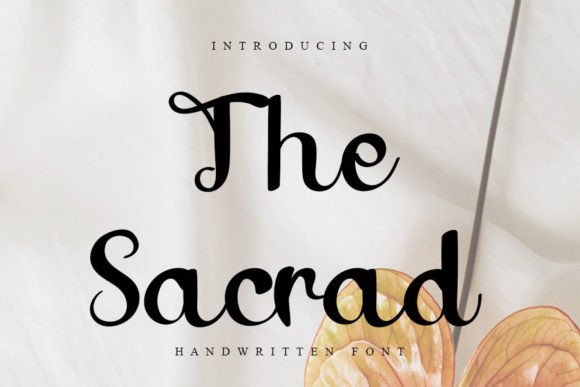
The Sacrad Font: A Touch of Delicate Romance
There are typefaces that command attention with bold strokes and geometric precision, and then there are those that whisper. The Sacrad Font belongs firmly in the latter category. It is a premium font characterized by its slim, delicate handwritten style. It isn't designed to shout from the headlines; it is designed to connect on a personal level. If you have ever struggled to find a typeface that feels genuinely warm without looking messy or childish, this handwritten font offers a refined solution. It strikes a rare balance between the casual nature of a script font and the legibility required for professional design assets.
The Anatomy of a Joyful Typeface
When we talk about the visual characteristics of The Sacrad, we are looking at a masterclass in subtlety. The letterforms are constructed with a light touch, mimicking the natural flow of a fine-tipped pen on high-quality paper. Unlike heavy, textured brush scripts that can feel aggressive, this creative font is airy. The baseline has a gentle, organic sway, but it remains consistent enough to ensure readability.
The personality of The Sacrad is distinctly dainty and joyful. You can see this in the way the terminals (the ends of the strokes) taper off to delicate points. The spacing between letters is generous, allowing the design to breathe. This isn't just about aesthetics; it’s about modern typography that prioritizes clarity. It avoids the overly complex swashes that often render script fonts useless in smaller sizes. Instead, it offers a clean elegance that feels timeless rather than trendy. For a brand identity, this translates to a personality that is approachable, trustworthy, and sophisticated.
Strategic Applications: From Wedding Invites to Web Design
While the description mentions wedding invitations—and it truly excels there—limiting The Sacrad to just one niche would be a mistake. Its utility spans across various sectors of editorial design and packaging design. As a designer or entrepreneur, understanding where to deploy this typeface is key to maximizing its impact.
Wedding and Event Stationery
This is the natural home for The Sacrad. In the context of wedding invitations, save-the-dates, and thank you cards, the font acts as the emotional anchor. It suggests a human touch, implying that the stationery was crafted with care. It pairs beautifully with a classic serif font for the details (like dates and addresses), creating a visual hierarchy that guides the eye naturally.
Branding and Logo Design
For businesses in the lifestyle, beauty, wellness, or boutique fashion sectors, The Sacrad is a powerful tool for logo design. It signals that the brand values personal connection and quality. However, a word of caution from a brand strategy perspective: because it is so delicate, it must be paired with a sturdy sans serif font or a serif typeface for body copy to maintain professionalism. Using it for a logo works because logos are usually displayed at sizes where the font's details can shine.
Digital Presence and Social Media
In the realm of web design and social media graphics, texture is everything. A block of text in a standard Arial or Helvetica font can feel sterile on an Instagram feed or a website hero section. The Sacrad adds immediate personality. It is excellent for pull quotes on blog posts, header graphics on Pinterest pins, or overlay text on lifestyle photography. It helps break the monotony of standard web fonts and increases audience engagement by drawing the eye to specific, emotional phrases.
Technical Considerations for Designers
Choosing a commercial font isn't just about falling in love with the aesthetic; it’s about functionality. Here is how to approach The Sacrad from a technical standpoint to ensure it serves your project effectively.
Readability and Hierarchy
Because The Sacrad is a display font with a handwritten style, it is not intended for long paragraphs of body copy. If you try to use it for 12-point text on a website, the delicate strokes will disappear, and readability will plummet. Instead, use it for headlines, sub-headers, or accent text. Create a font pairing strategy: Use The Sacrad for the "flavor" and a legible sans serif font for the "nutrition" (the information). This contrast creates a dynamic visual hierarchy that keeps the viewer interested.
Evaluating Font Pairings
Finding the right partner for a script font can be tricky. The Sacrad’s slim structure means it pairs best with lighter-weight sans serifs or modern serifs with high x-heights. Avoid pairing it with ultra-bold, blocky fonts, as the contrast might be too jarring. A good rule of thumb is to look for a typeface that shares a similar mood. For example, a clean geometric sans serif complements the modern yet romantic vibe of The Sacrad, creating a cohesive brand identity.
Conclusion: Adding Soul to Your Design
In a digital landscape saturated with cold, algorithmic precision, The Sacrad Font offers a breath of fresh air. It is more than just a collection of letters; it is a tool for injecting humanity into your work. Whether you are a crafter looking to elevate your hobby, a marketer aiming to soften a campaign, or a designer seeking the perfect accent for a luxury brand, this handwritten font delivers. By understanding its strengths—its delicacy, its joy, and its versatility—you can use The Sacrad to create designs that don't just look good, but feel right.